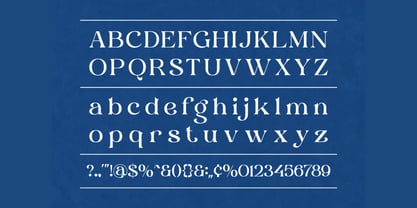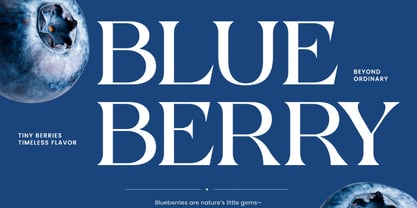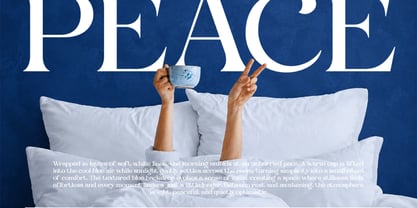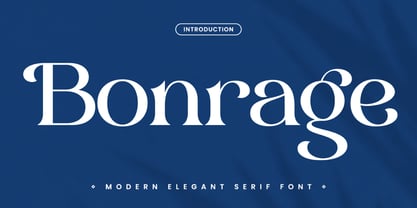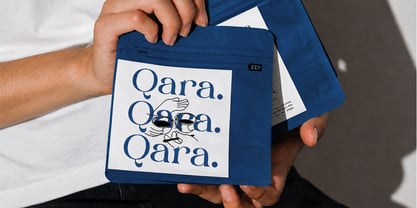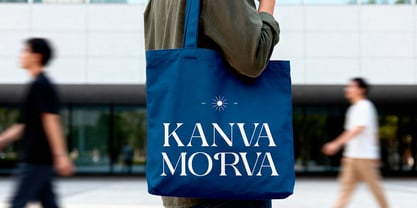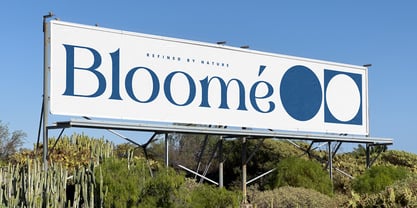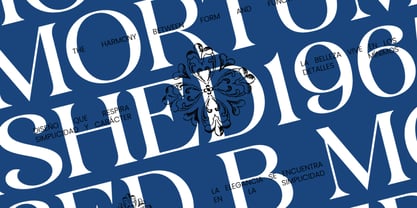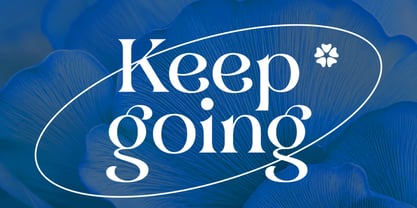
Bonrage
Bonrage is a refined display serif typeface that blends contemporary sophistication with timeless editorial elegance. The design features crisp high-contrast strokes, sculpted wedge serifs, and gracefully balanced proportions that create a luxurious typographic presence without sacrificing readability. Its carefully crafted spacing, smooth stroke transitions, and harmonious character proportions provide excellent performance in headlines, logos, editorial layouts, and luxury branding.
Relevance and Use Case is perfect for premium creative projects that require refined typography with a strong editorial presence. Its elegant proportions and sophisticated serif construction make it highly suitable for luxury branding, fashion publications, cosmetic packaging, boutique identities, hospitality branding, wedding stationery, premium presentations, magazine covers, logo design, and visual identity systems where timeless elegance and readability are equally important.